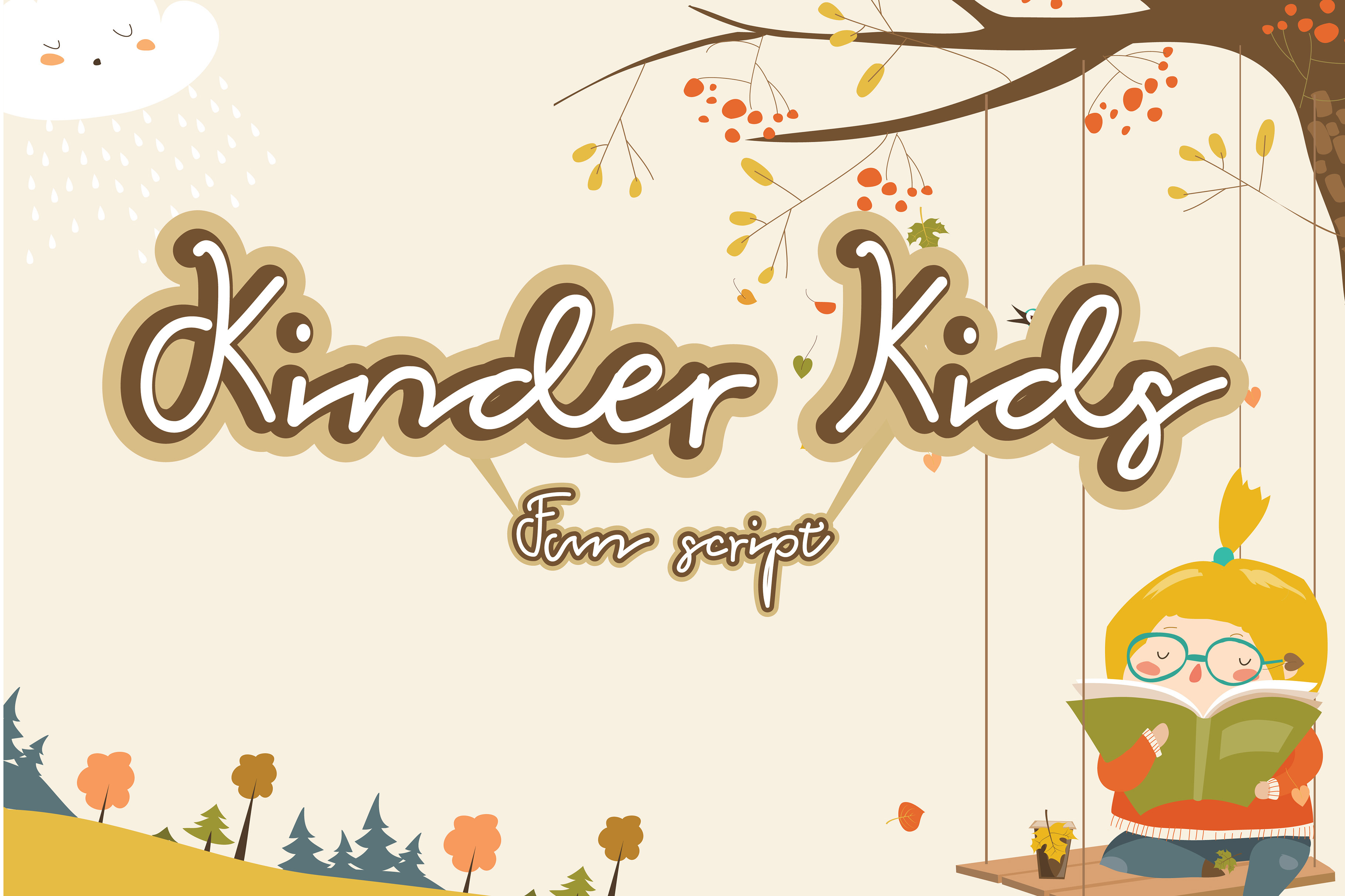
Kinder Kids - Fun Script Font
Kinder Kids is a cute script font. This versatile script font has a wide range of applications ranging from greeting cards to kids’ crafts, and is guaranteed to add a sweet touch to your next design. This font is PUA encoded which means you can access all of the glyphs and swashes with ease!